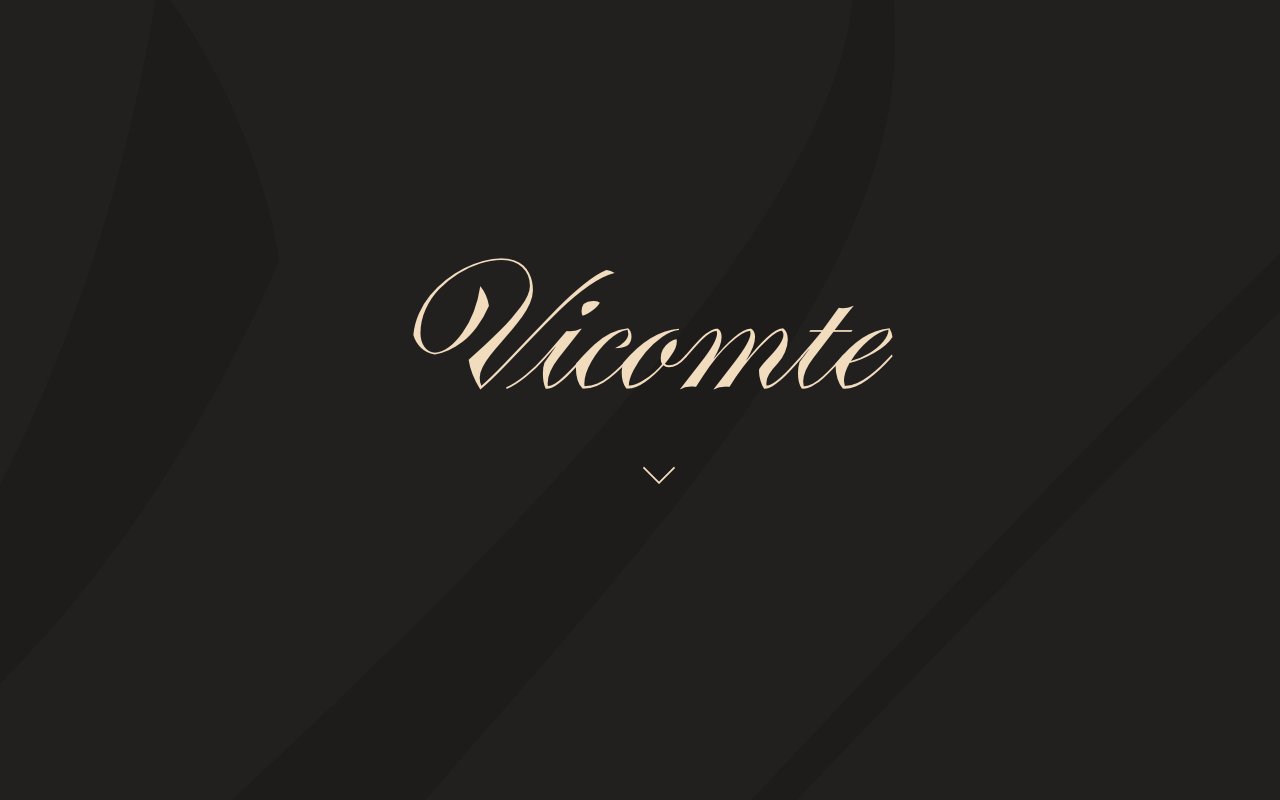
Vicomte font
Author unknownMarvelous One Pager promoting a vintage engrave-style font called ‘Vicomte’. The long site comes to life as you scroll down filling your screen with several animated examples of the font in use. A benchmark reference to how well you can promote a premium font. Top job!